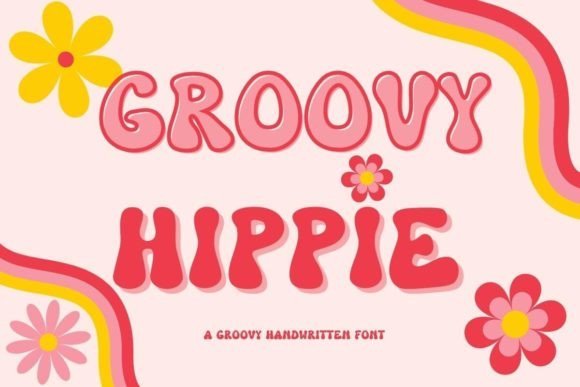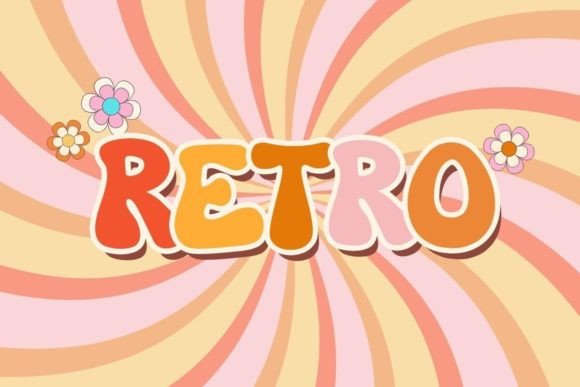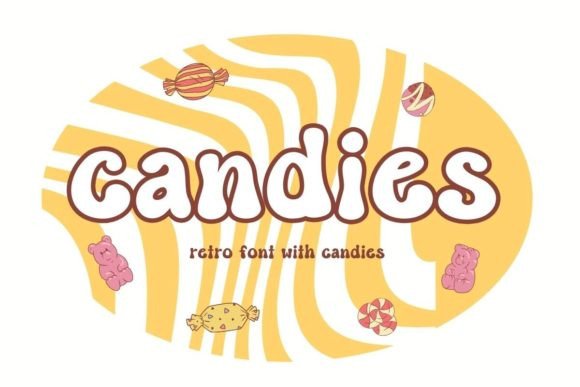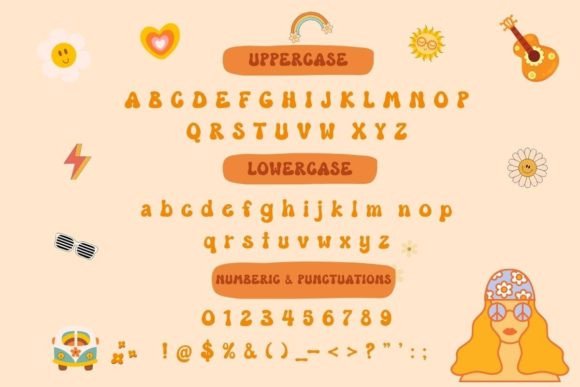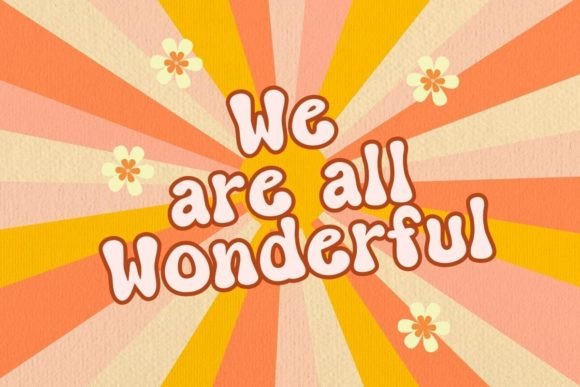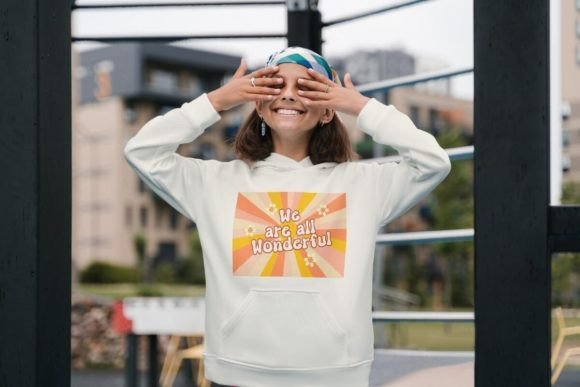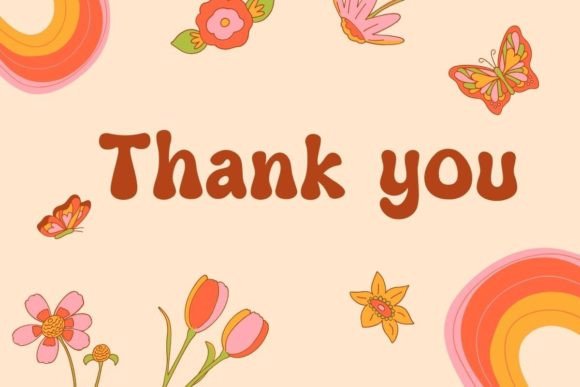
Get Your Groove On: Unlocking the Magic of Groovy Hippie Font
Have you ever stumbled upon a font that just makes you feel like dancing in the rain? That’s what happened to me when I first laid eyes on the Groovy Hippie Font. I was brainstorming ideas for a retro-themed project and suddenly, the perfect font appeared. It was like the universe was saying, ‘Hey, this is the one!’ And trust me, it’s a game-changer.
So, what makes the Groovy Hippie Font so special? It’s a cute and playful display font that’s perfect for adding that extra oomph to your designs. Whether you’re working on a poster, a logo, or a social media graphic, this font is sure to bring a smile to your face and a touch of nostalgia to your audience. And the best part? It’s designed to be a true favorite among designers, making it a valuable addition to any font collection.
Groovy Hippie Font Key Features
- Font Family: Groovy Hippie Font is a unique, hand-drawn script font designed to evoke a carefree, bohemian vibe.
- Character Set: Includes a wide range of characters, including uppercase and lowercase letters, numerals, punctuation marks, and special characters.
- Unique Characteristics: Features a distinctive, handwritten feel with varying line widths, subtle imperfections, and a touch of organic flair.
Designer Review: Groovy Hippie Font
I recently had the chance to work with the Groovy Hippie Font, and I have to say it’s a unique addition to any design project. ✨ The font’s psychedelic vibes are sure to add a touch of fun and whimsy to your work. It’s perfect for projects that require a bit of a retro or bohemian feel.
The font’s playful nature makes it great for use in headings and titles. It’s also suitable for use in body text, although it may not be the most readable choice for large blocks of text. ✨ The font’s irregular letterforms and varied line widths add to its charm, making it a great choice for designs that need a bit of visual interest.
Limitsations:
- ⚠️ The font may be difficult to read in certain contexts, such as in small sizes or when used for large blocks of text.
- ⚠️ The font’s irregular letterforms may not be suitable for use in formal or professional contexts.
Overall, I think the Groovy Hippie Font is a fun and creative choice for designers who want to add a bit of personality to their work. While it may not be suitable for every project, it’s a great choice for designs that require a bit of flair and whimsy. With a little bit of care and consideration, this font can be a real showstopper.
The “Groovy Hippie Font” is perfect for creating a fun and playful vibe in your designs. Some common use cases include:
- Music festival posters and flyers.
- Summer-themed party invitations and decorations.
- Quirky blog and social media graphics.